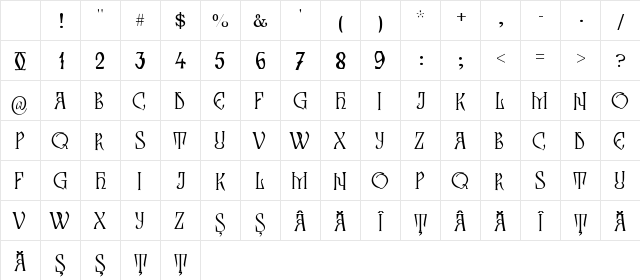
Complete Zamolxis III Regular glyph index. Displaying only characters natively supported by Zamolxis III Regular font.
Zamolxis III is a composed and adaptable typeface that performs quietly and consistently across a wide range of design contexts.